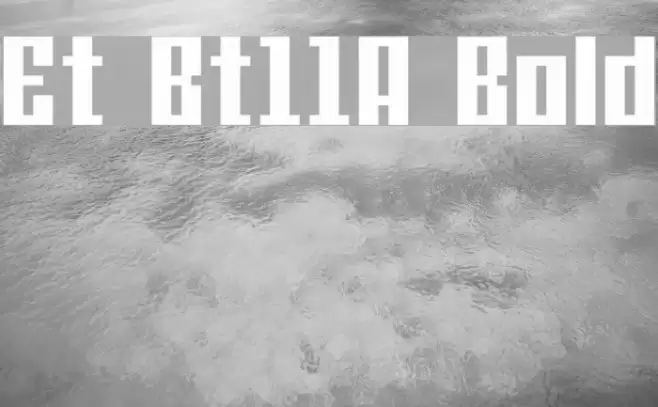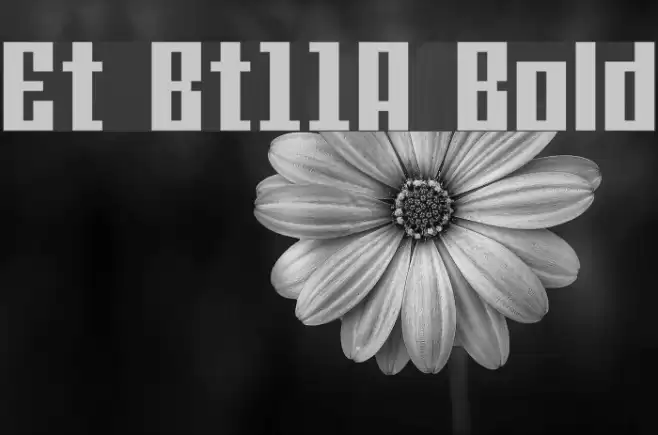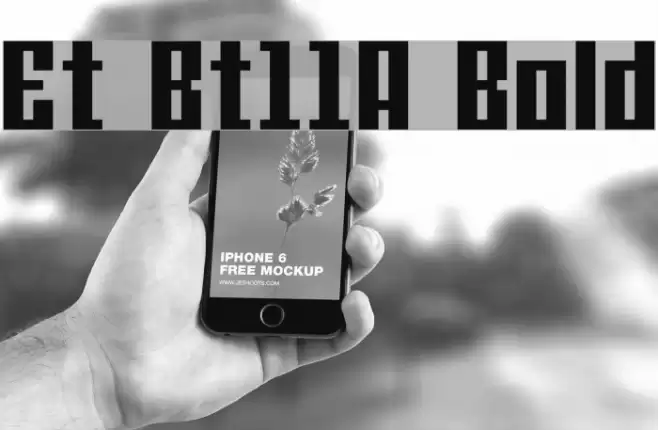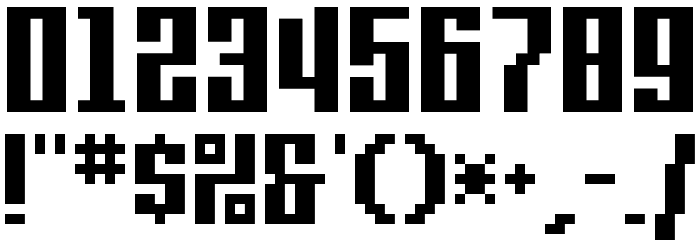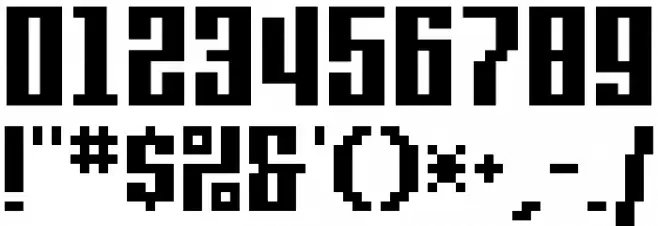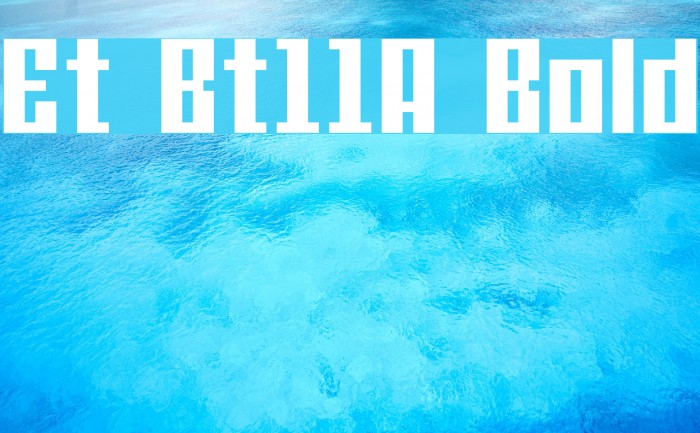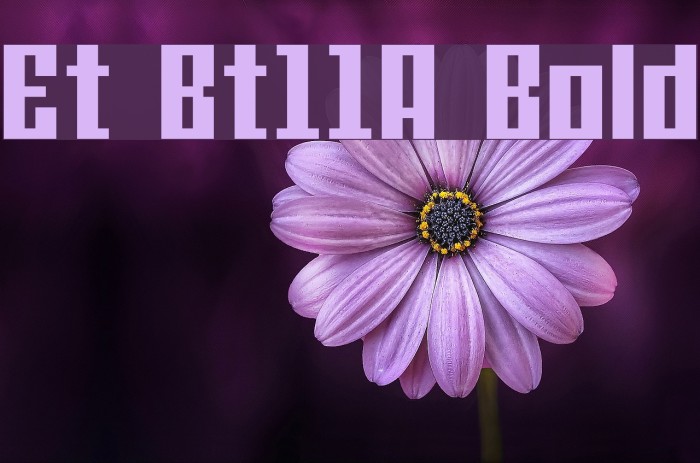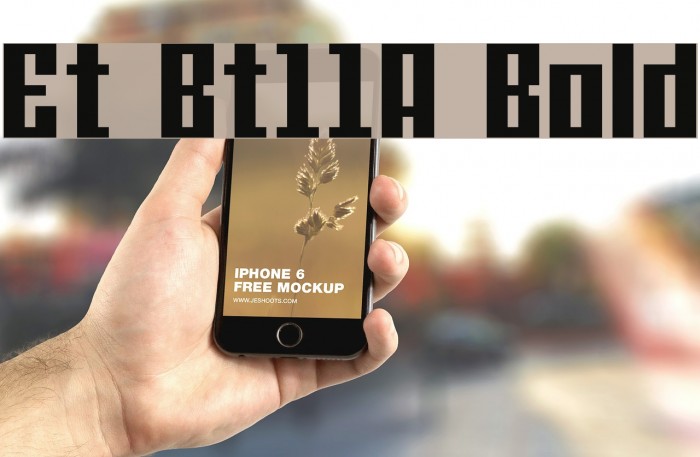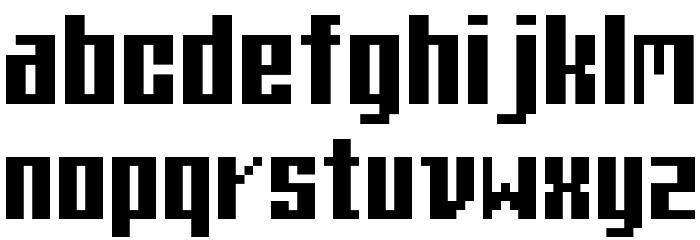
Et Bt11A Bold Font
Et Bt11A Bold Description
This font features a bold, blocky design with a distinctly pixelated aesthetic reminiscent of early digital displays and retro video games. The characters are uniformly wide, with sharp, angular edges and a consistent stroke weight throughout. The uppercase and lowercase letters maintain a cohesive style, with the lowercase letters mirroring the geometric simplicity of the uppercase. Numbers and special characters follow the same design principles, ensuring a uniform appearance across all glyphs. The font's boldness and clarity make it highly legible, even at smaller sizes, while its unique style adds a touch of nostalgia and modernity.
A bold, pixelated font with a retro digital aesthetic from Uncategorized fonts.
- Proposed Projects: Ideal for retro-themed designs, video game graphics, digital art projects, and any creative work seeking a nostalgic or tech-inspired look.
- Overall Style: Retro, Modern
- Use Case: Headlines, Logos, Digital Art